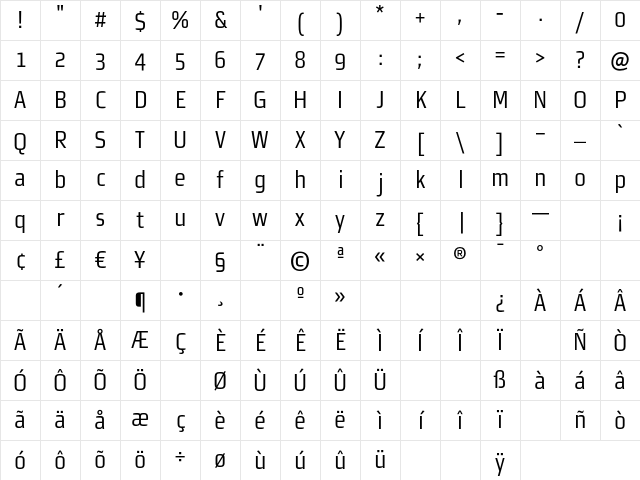
MorganSansCond RegularOffice
Design Context for MorganSansCond
MorganSansCond is a composed and adaptable typeface that performs quietly and consistently across a wide range of design contexts. Its narrow stance lets it pack a punch even in space-constrained designs.
Pro Tip: Use MorganSansCond in both headline and body roles to test its range before committing to a single application.